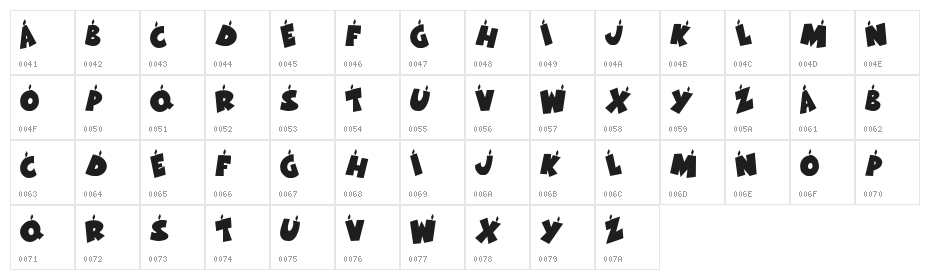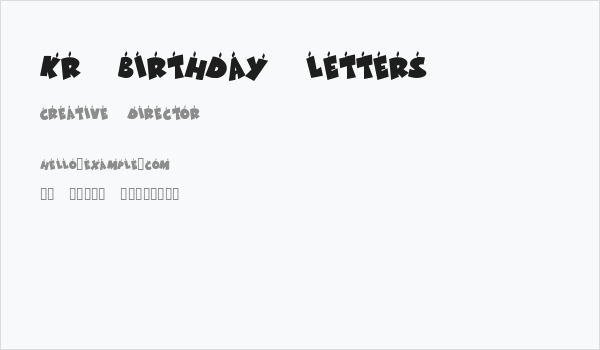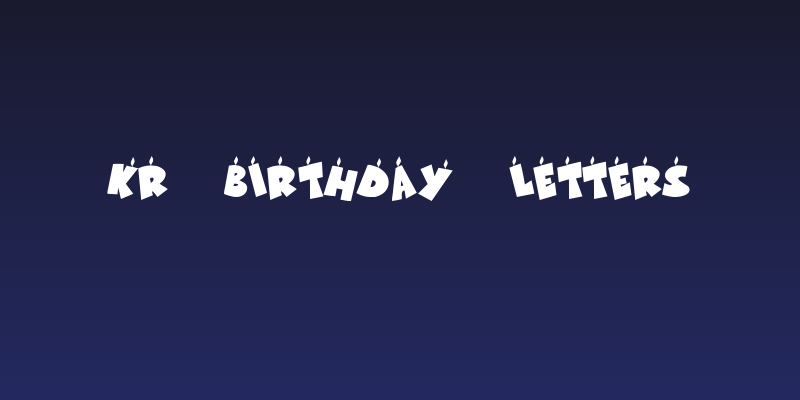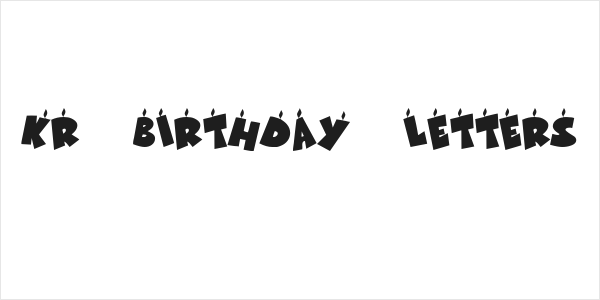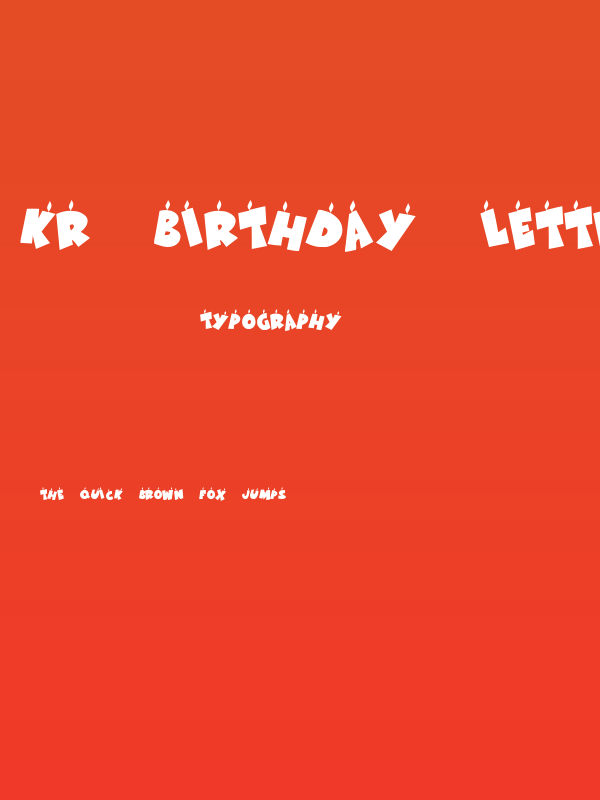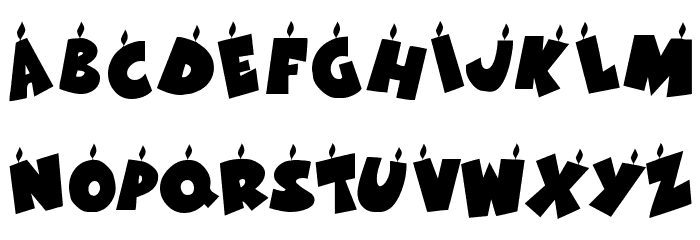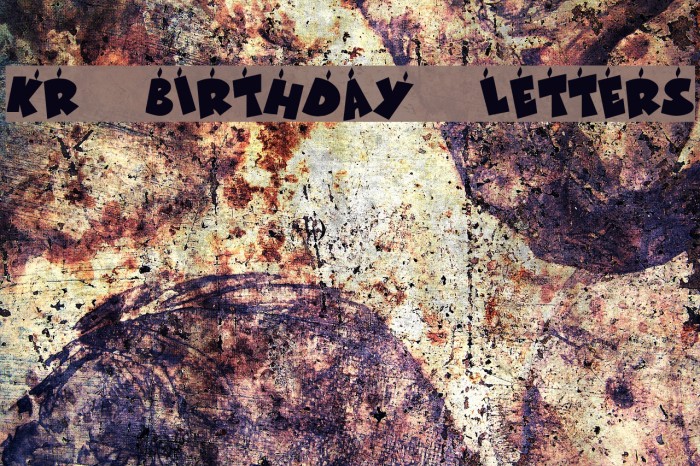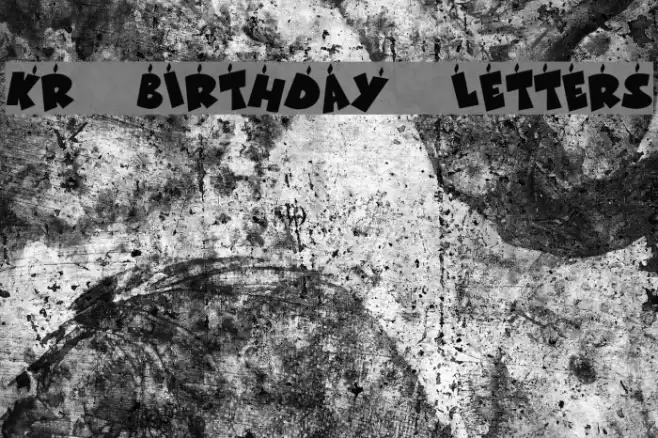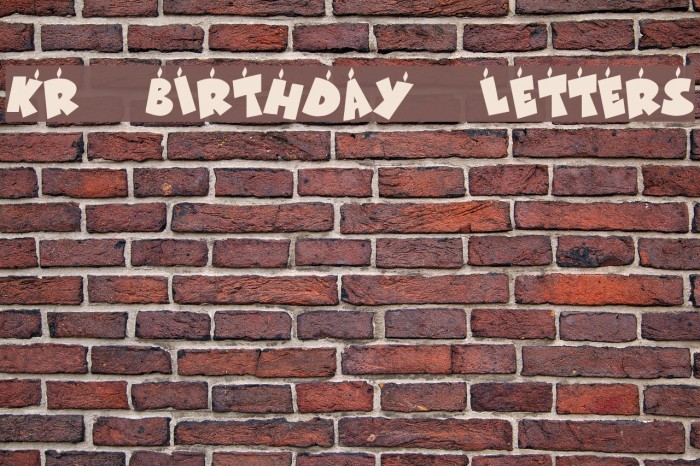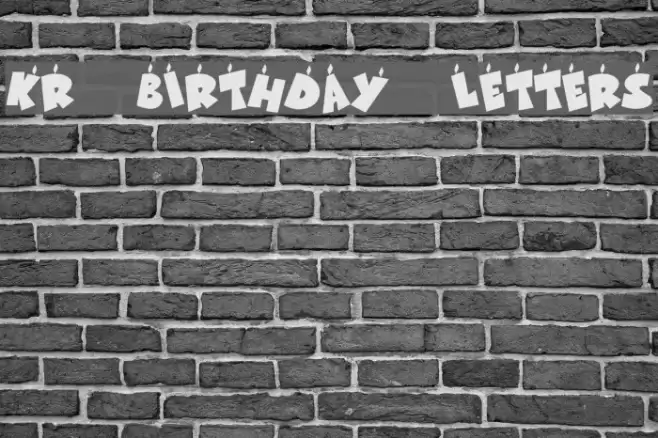
KR Birthday Letters Font
This playful and festive font features bold, uppercase letters adorned with candle-like accents on top, reminiscent of birthday celebrations. The characters are designed with a whimsical, slightly irregular shape, adding a sense of fun and spontaneity. The boldness of the letters ensures high visibility, making it ideal for eye-catching designs. The font exudes a joyful and celebratory vibe, perfect for party invitations, greeting cards, and festive banners. Its unique style captures the essence of a birthday party, with each letter standing out distinctly while maintaining a cohesive look.
| Proposed Projects | Ideal for birthday invitations, party banners, festive greeting cards, and playful posters. |